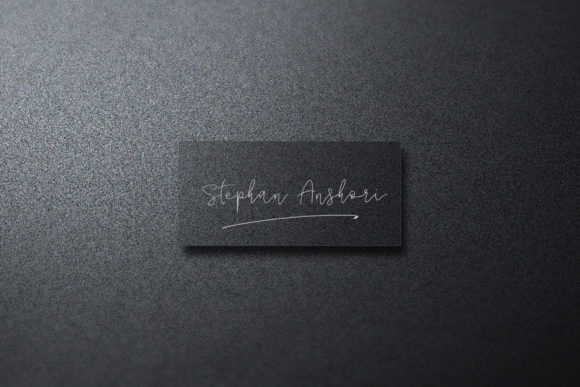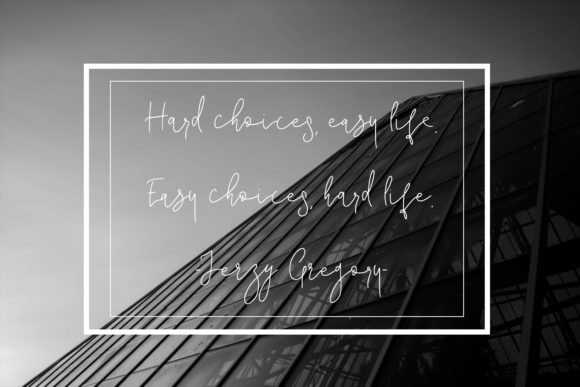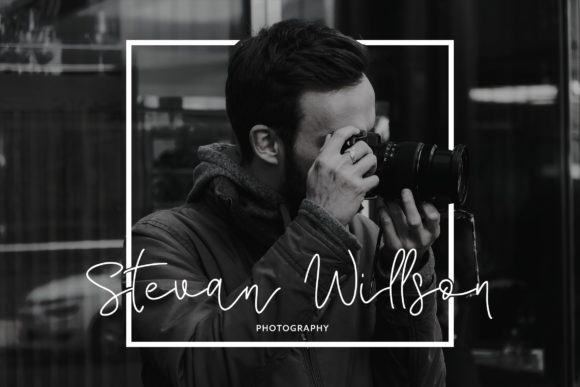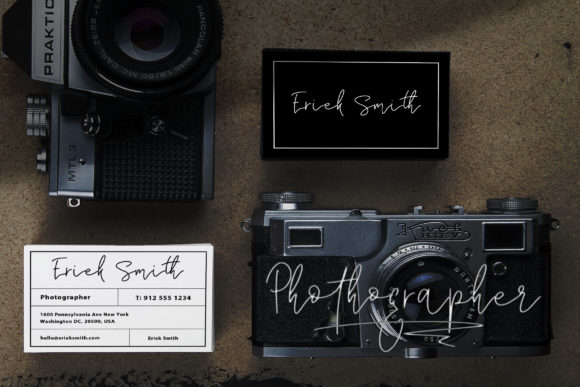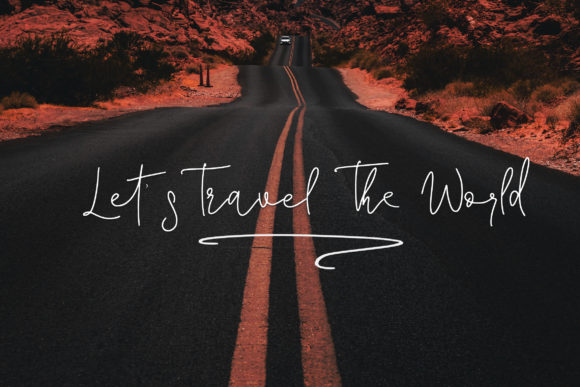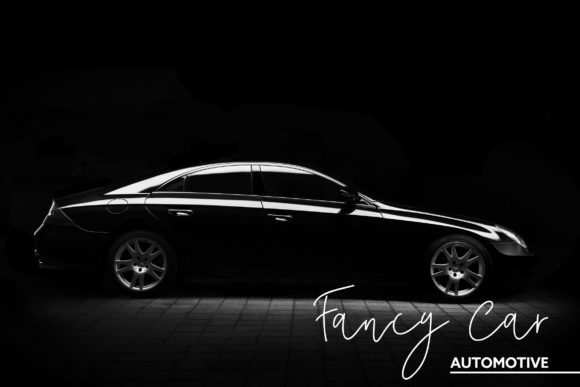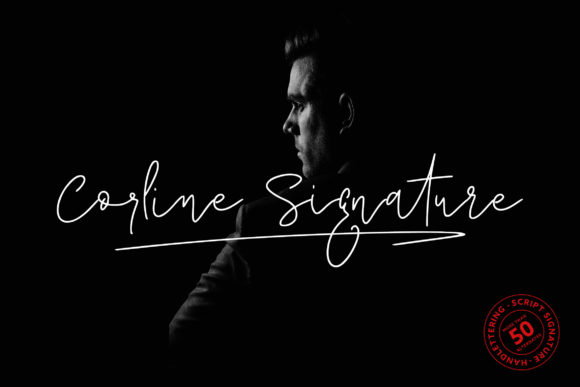
Introducing Corline Signature Font: Elevate Your Designs with Style and Sophistication
Are you tired of using the same old fonts in your designs? Look no further! Corline Signature Font is here to revolutionize the way you create. This dynamic, sporty, and luxurious handwritten font is packed with incredible style, making it the perfect addition to your typography arsenal. Get ready to be inspired by its unique charm!
What Makes Corline Signature Font So Special?
Corline Signature Font is not just another font – it’s an experience. Its carefully crafted letters exude a sense of sophistication and elegance, making it perfect for high-end branding, advertising, and design projects. The font’s sporty undertones add a touch of modernity, ensuring your designs stay fresh and contemporary.
Key Features of Corline Signature Font
- Dynamic and Versatile: Corline Signature Font is designed to adapt to various design contexts. Whether you’re working on a logo, brochure, or social media graphics, this font seamlessly adjusts to deliver stunning results.
- Luxurious and Refined: The font’s luxurious feel makes it perfect for high-end brands, fashion designers, and artists who require a sophisticated typography solution.
- Handwritten with Love: Corline Signature Font is meticulously handcrafted, giving it a unique and personal touch that sets it apart from generic fonts.
- Incredible Style: The font’s distinctive style ensures your designs stand out from the crowd, making it an excellent choice for designers seeking to make a lasting impression.
Who Can Benefit from Corline Signature Font?
Corline Signature Font is an excellent addition to any designer’s toolkit, regardless of their specialization. Here are some professionals who can benefit from this exceptional font:
- Graphic Designers: Elevate your branding, advertising, and marketing materials with Corline Signature Font’s luxurious and sporty vibe.
- Fashion Designers: Add a touch of sophistication to your fashion branding, packaging, and marketing materials.
- Stationery and Craft Designers: Create stunning stationery, journals, and planners that exude elegance and refinement.
- Digital Artists: Use Corline Signature Font to add a personal touch to your digital art, illustrations, and graphics.
How to Use Corline Signature Font in Your Designs
Integrating Corline Signature Font into your design workflow is seamless. Here are some tips to get you started:
- Pair it with Neutrals: Combine Corline Signature Font with neutral fonts to create a harmonious balance of style and simplicity.
- Experiment with Colors: Play with different color schemes to find the perfect match for your design and brand identity.
- Mix and Match: Don’t be afraid to combine Corline Signature Font with other fonts to create a unique typography solution.
| Author | Juncreative |
Corline Signature Font is a game-changer for designers and crafters seeking to elevate their designs with style and sophistication. Its dynamic, sporty, and luxurious feel makes it perfect for a wide range of applications. With its incredible style and unique charm, Corline Signature Font is sure to inspire you to create something truly remarkable. Get ready to take your designs to the next level!